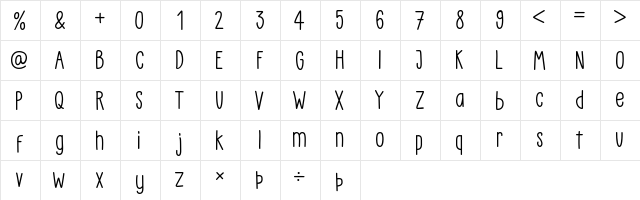
Little Pea - Demo Regular
Design Context for Little Pea - Demo Typeface
Little Pea - Demo is a composed and adaptable typeface that performs quietly and consistently across a wide range of design contexts.
Pro Tip: Pair Little Pea - Demo with a font of contrasting weight or personality to build a more expressive typographic hierarchy.